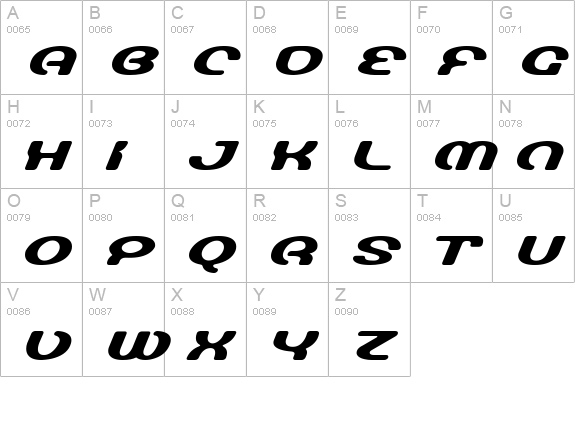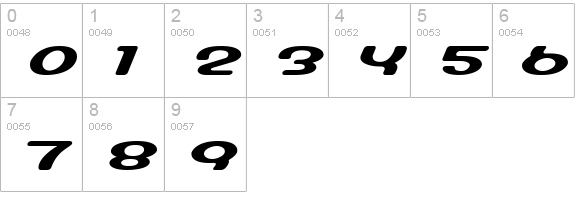
LumineSign Bold Font Details
LumineSign Bold is a strong, high-contrast variant in the LumineSign typeface family \xE2\x80\x94 well suited to headlines, attention-grabbing titles, and strong calls-to-action.
LumineSign Bold is a striking and versatile font that exudes elegance and sophistication. With its bold and dynamic appearance, this font is perfect for making a statement in any design project. The sharp edges and clean lines of LumineSign Bold give it a modern and contemporary look that is sure to catch the eye. What sets LumineSign Bold apart is not only its impeccable design, but also the fact that it is available for free download at FontsMarket.com. This means that you can easily access this beautiful font and use it in your projects without any additional cost. Whether you are creating a logo, poster, website, or any other design, LumineSign Bold is a fantastic choice that will elevate your work to the next level. Download LumineSign Bold today and add a touch of sophistication to your designs with this stunning and free font.